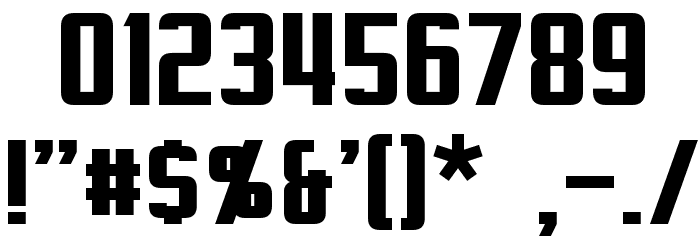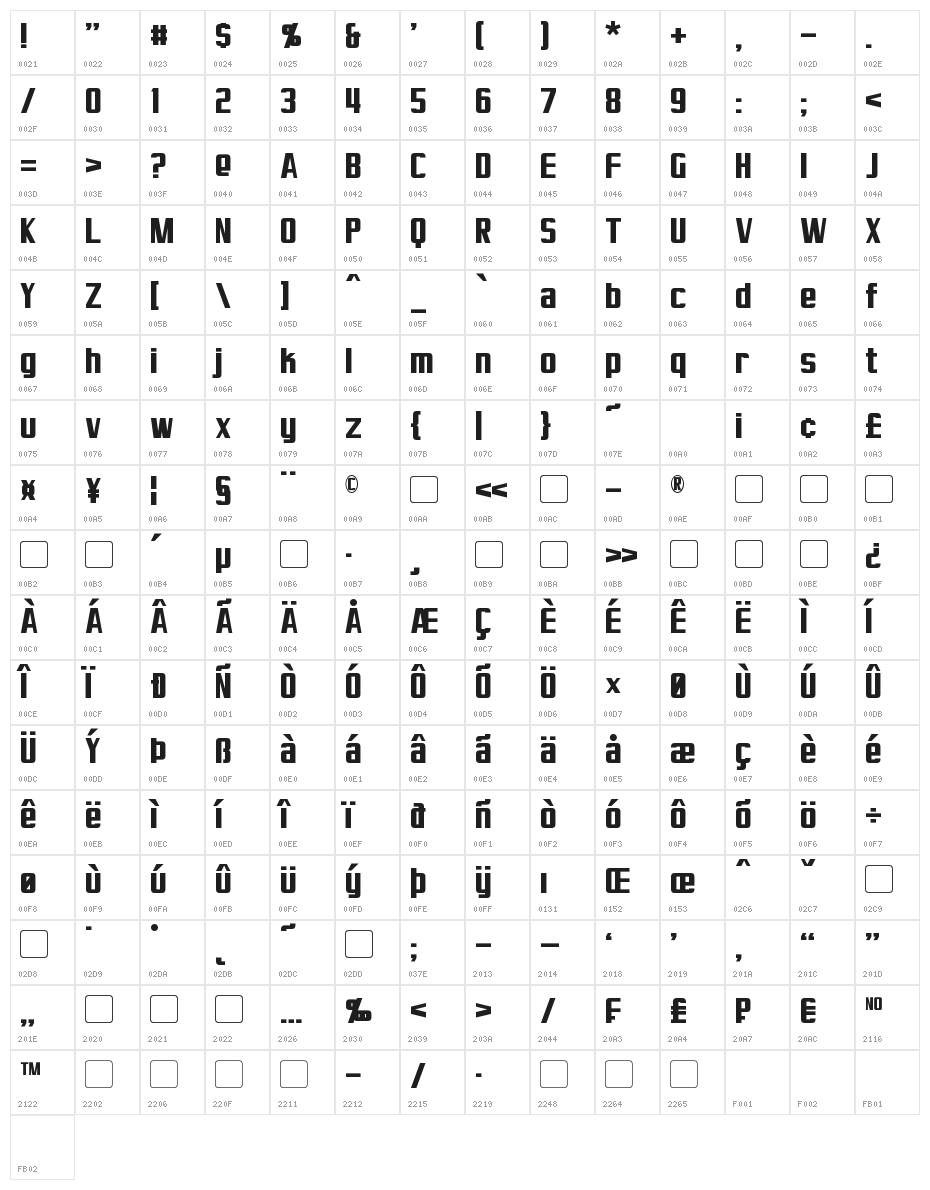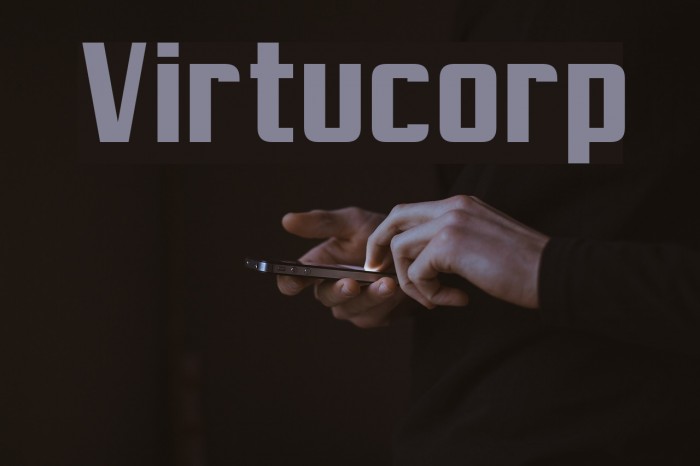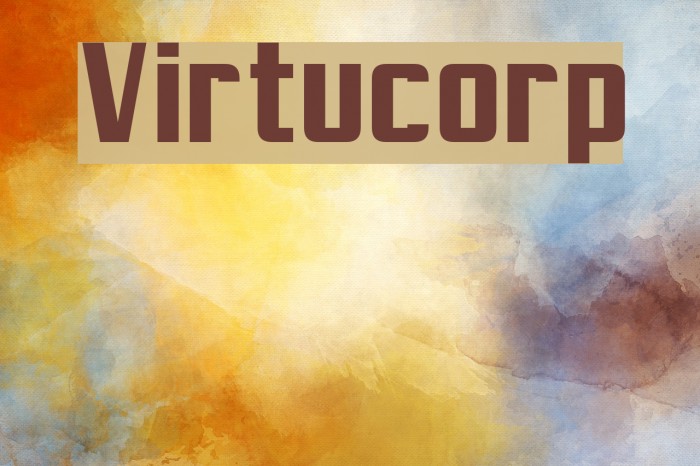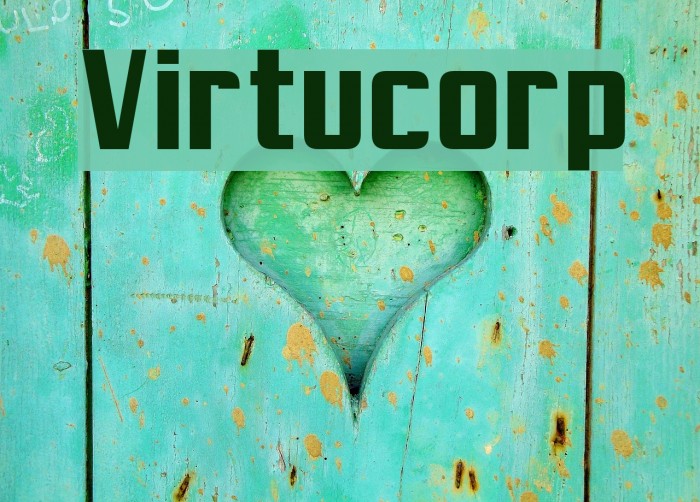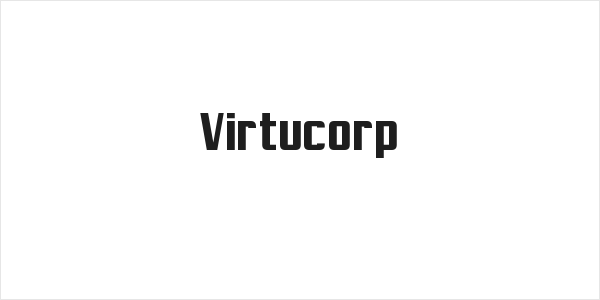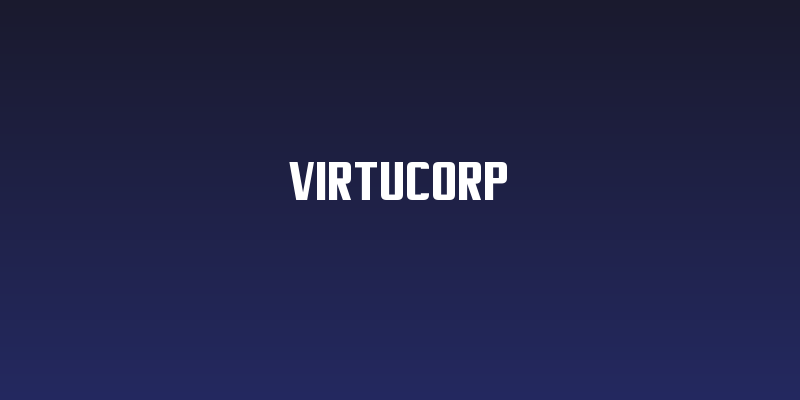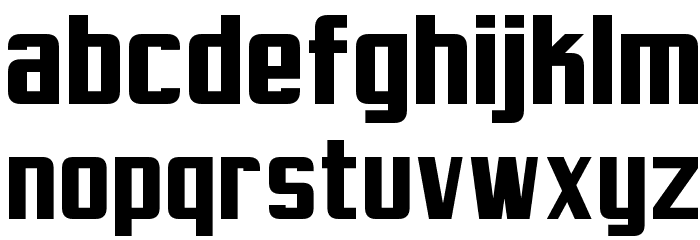
Virtucorp Font
Virtucorp Description
This font features a bold and assertive style with a modern, geometric design. The characters are constructed with strong, straight lines and sharp angles, giving it a robust and impactful appearance. The uppercase letters are particularly striking, with a uniform height and width that create a cohesive look. The lowercase letters maintain the same geometric style, ensuring consistency across the typeface. The numbers are clear and legible, designed to match the boldness of the alphabetic characters. Special characters are included, each crafted with the same attention to detail, making this font versatile for various applications.
| Proposed Projects | Ideal for branding, headlines, posters, and any project requiring a strong visual impact. |